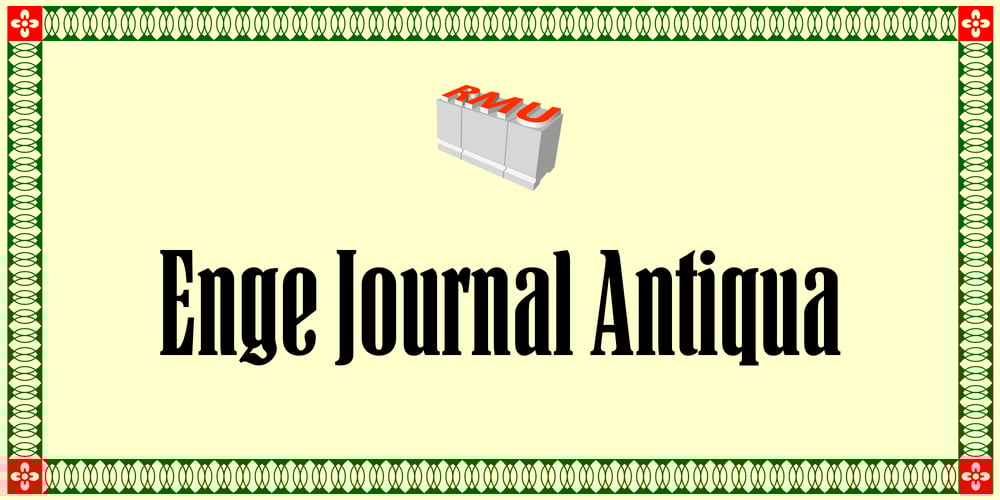
Enge Journal Antiqua Font Family was designed by Ralph M. Unger and published by RMU. Enge Journal Antiqua contains 1 styles and family package options. Hermann Zehnpfundt’s Enge Journal Antiqua, released by the Emil Gursch Foundry, Berlin, in 1910, revived and redesigned.This font contains also a long s, which can be reached by typing option + b, or turning the round s into the long one by using the OT feature historical forms. It is recommended to also use the OT feature discretionary ligatures to get access to all ligatures in this font.